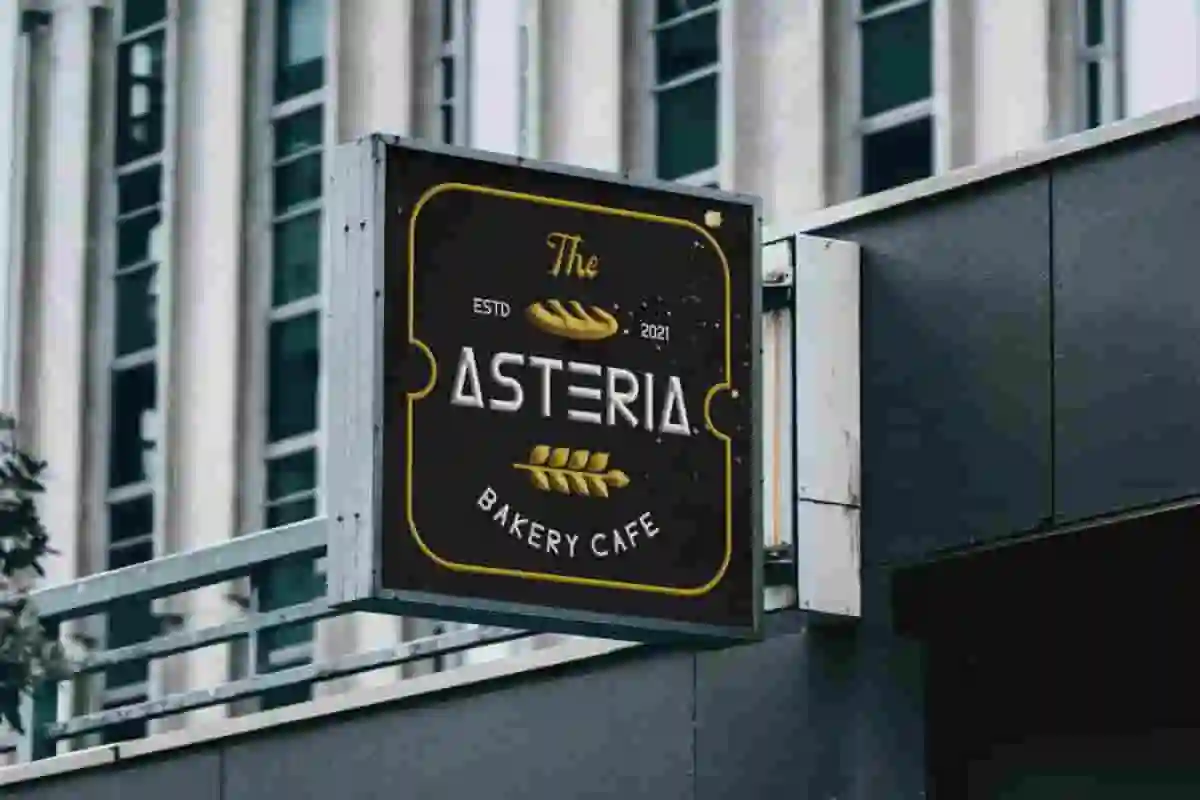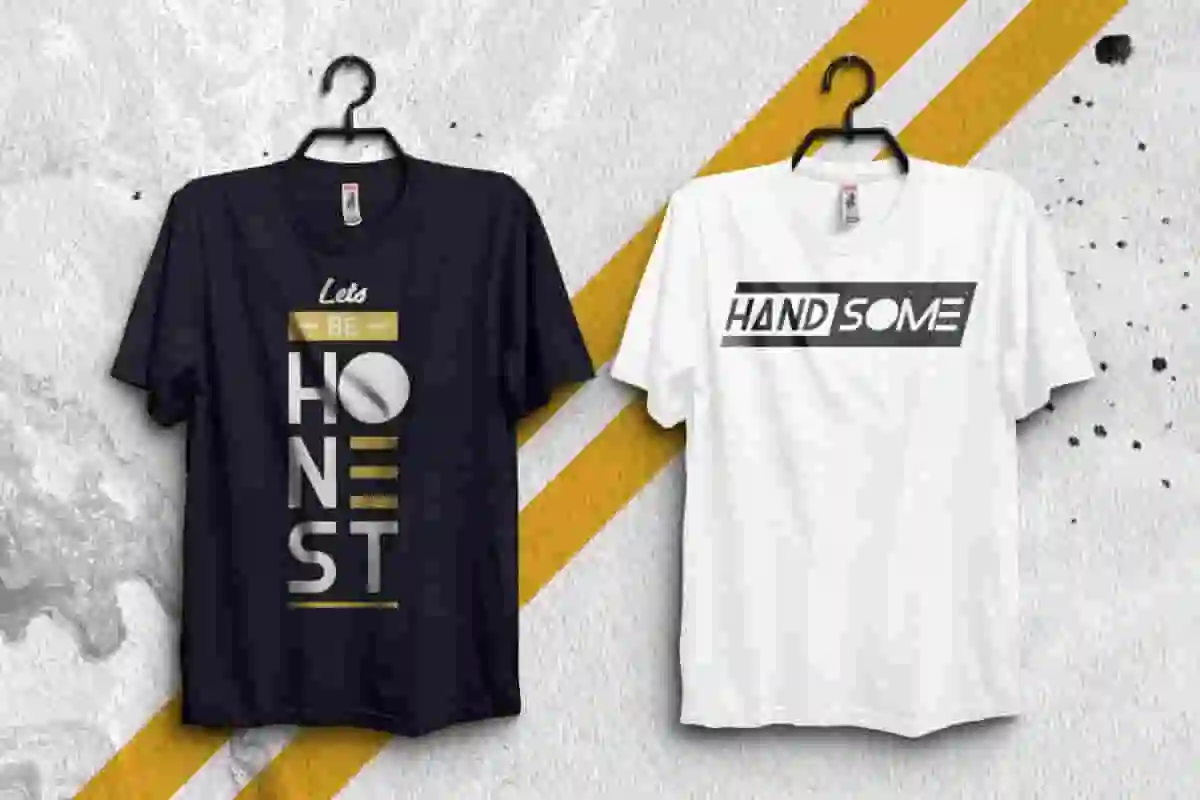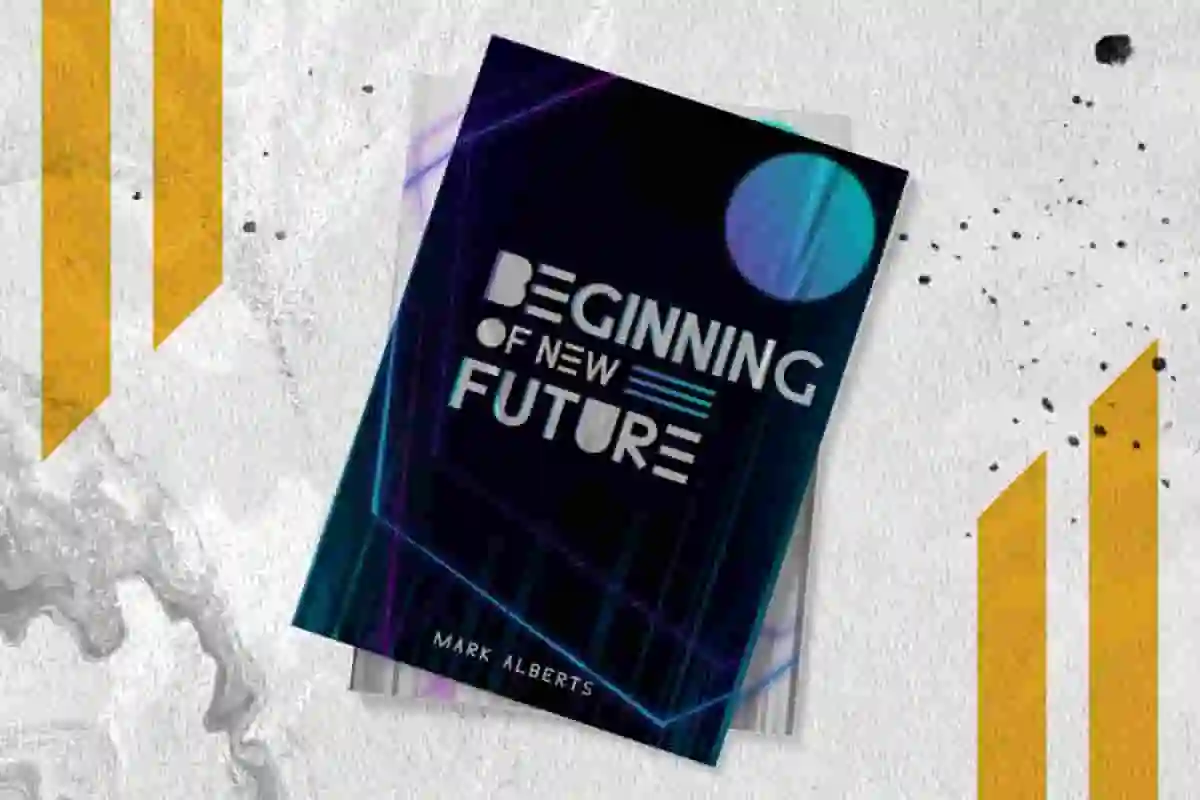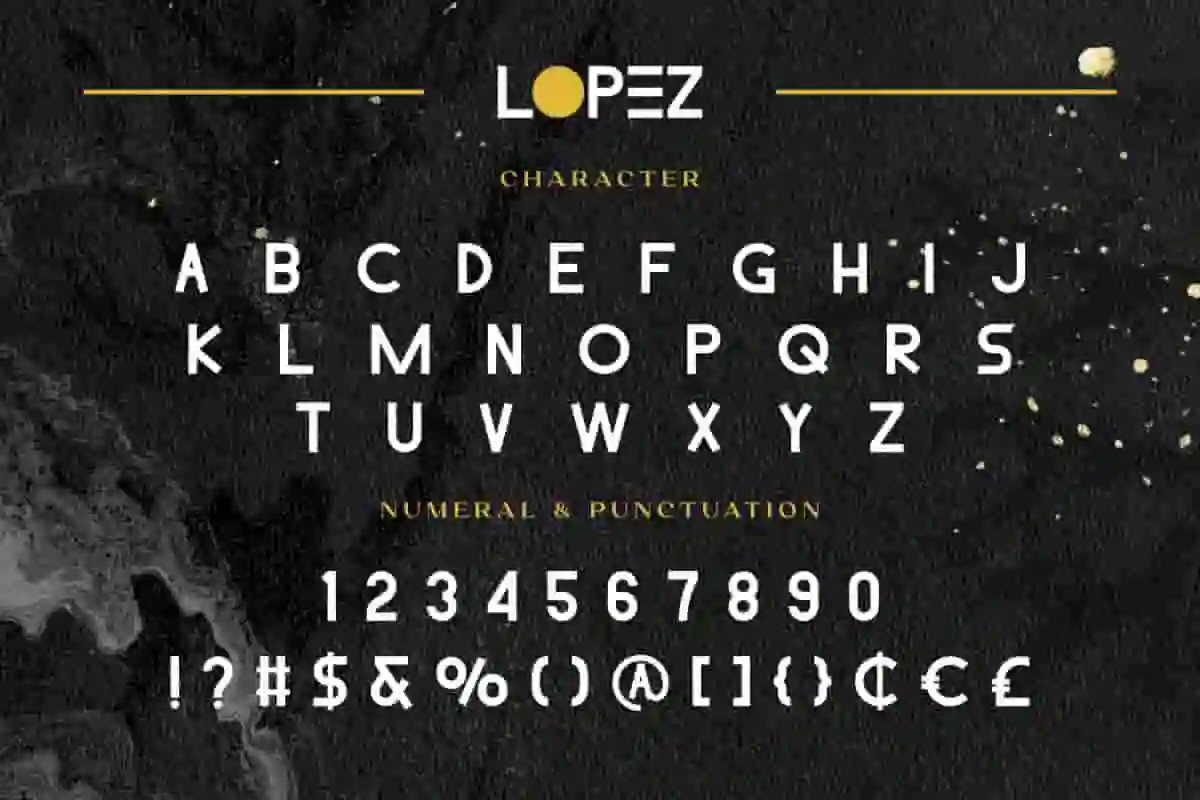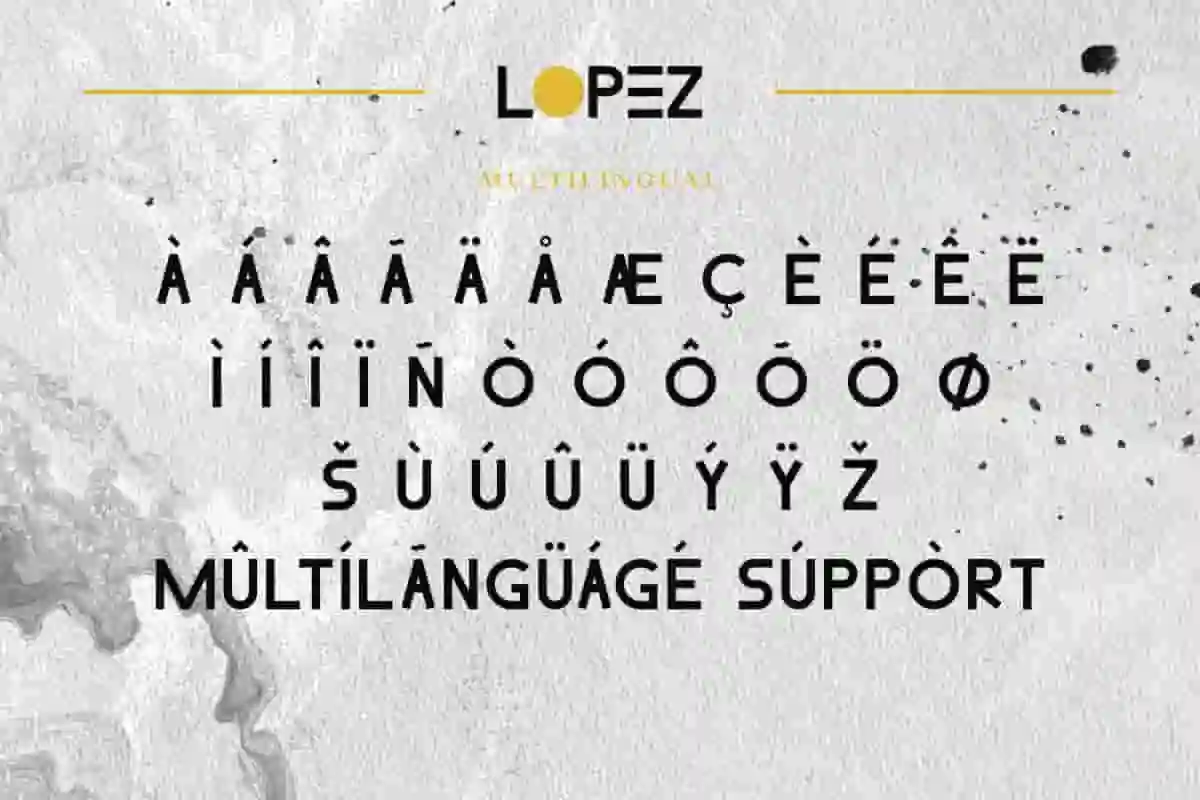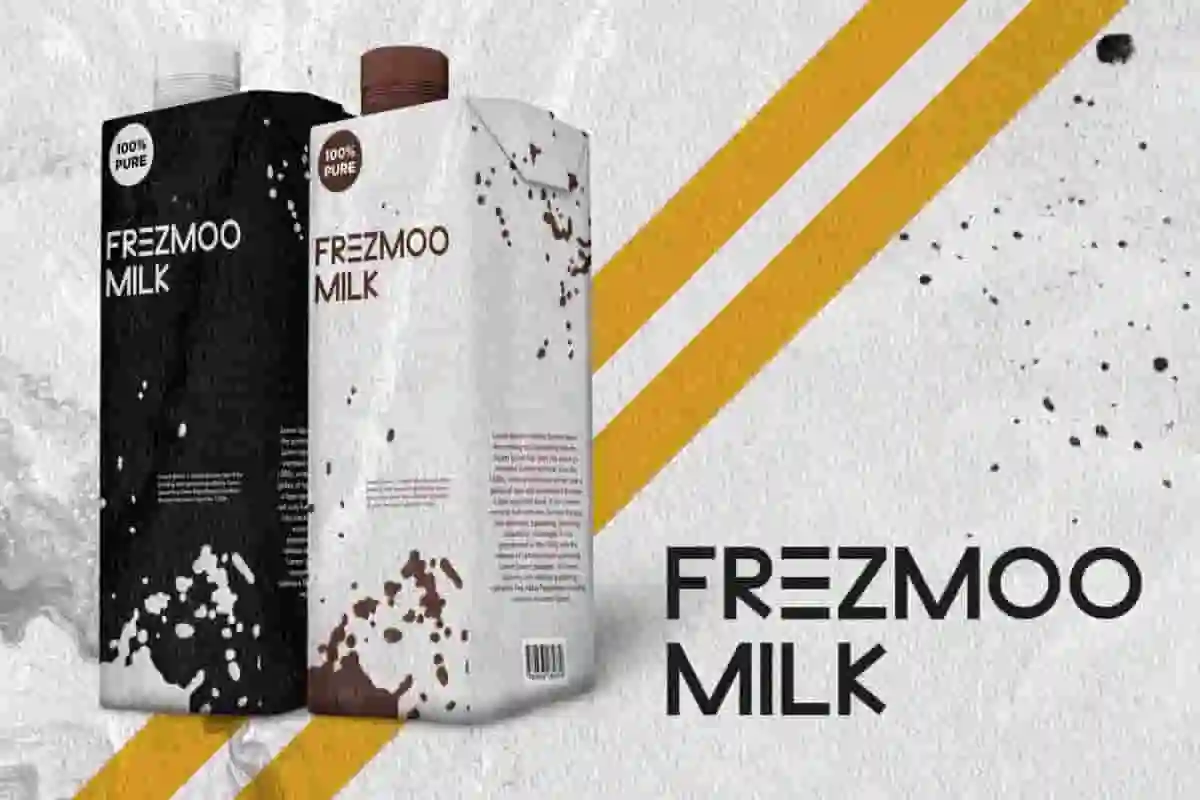
Lopez is a new modern sans serif display font from NoahType. It’s able to add an edge and sophistication to your work and also hold its own around those unique look! sans serif font with bold and complex personality. Make your project stand out from the rest. It is perfect for headline, magazines, website, poster, signage
Lopez Font includes full set of Uppercase and Lowercase Basic Characters, Numerals and Punctuation. This font has alternate characters on the letters that are presented offer a different and excellent look that is ready to surprise you